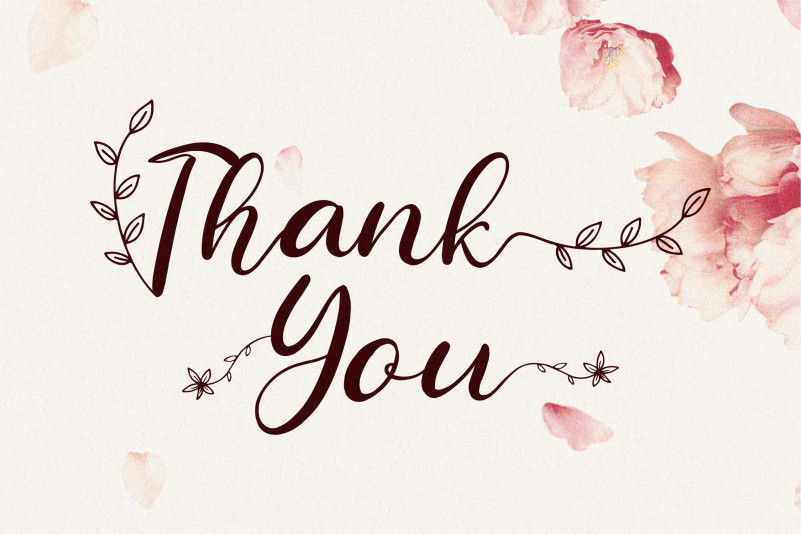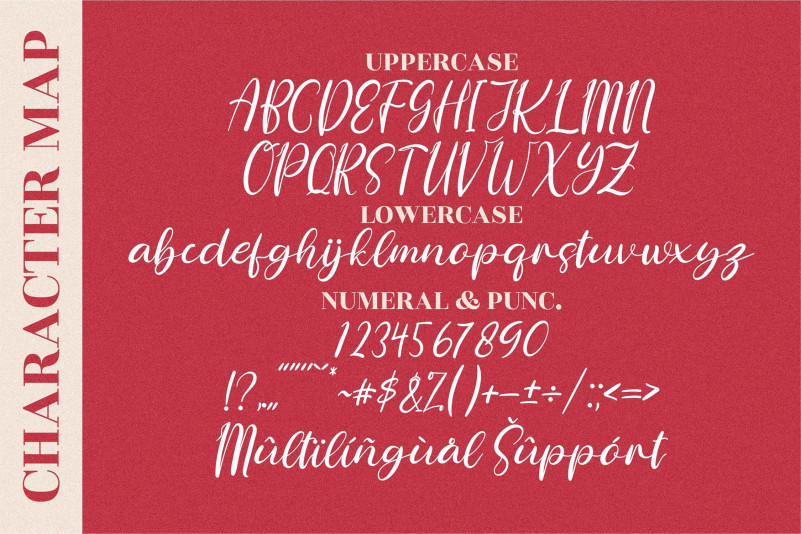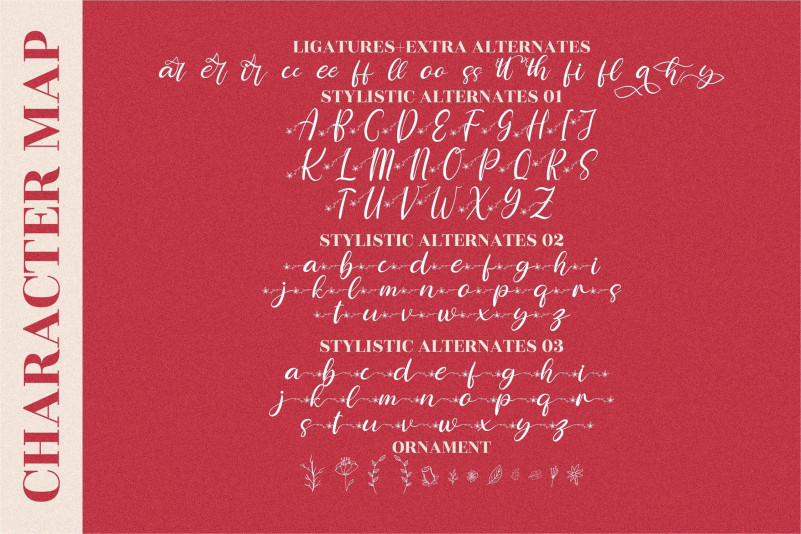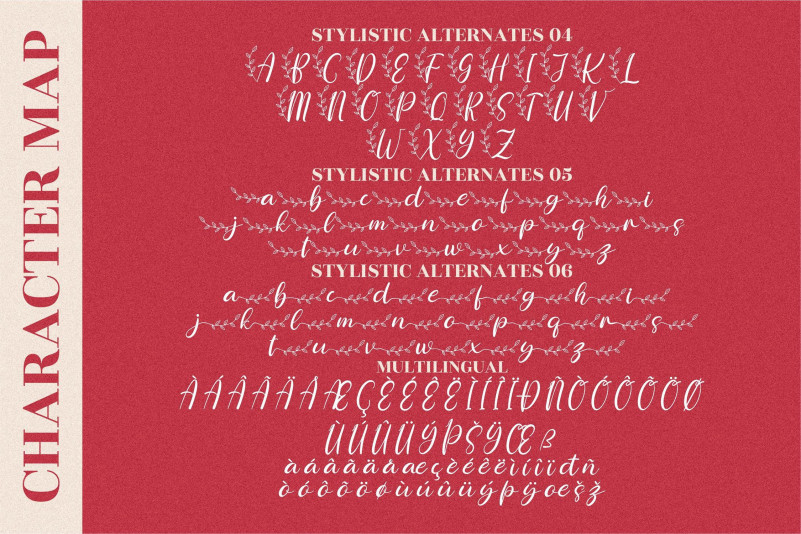
Happy Floral Font
Happy Floral Calligraphy Font
This is a beautiful light handwritten font with a unique feel and a stunning impact. It will add a luxury spark to any design project that you wish to create! This font is PUA encoded which means you can access all of the amazing glyphs and ligatures with ease!